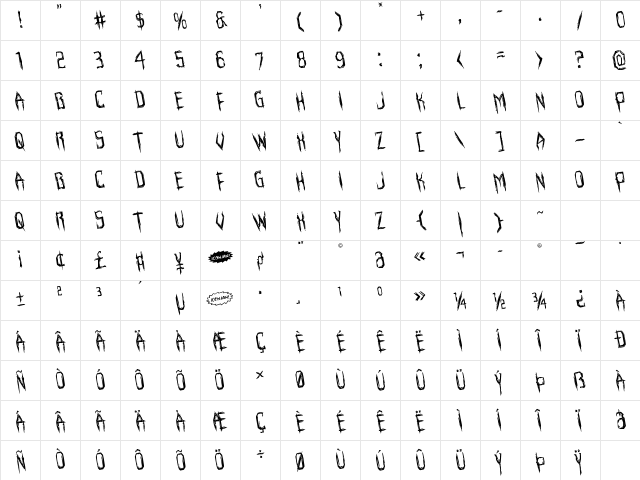
Horroroid Rotated Regular
Design Context for Horroroid Rotated
Horroroid Rotated carries an unsettling edge - its distorted letterforms are built to unsettle, perfectly suited to horror, Halloween, and dark creative work.
Font Pairing: Pair with a clean neutral sans-serif for body copy to let Horroroid Rotated's character lead without overwhelming the composition.
Pro Tip: Use Horroroid Rotated at larger display sizes for maximum impact. Consider generous tracking to let the disturbing character of each letterform breathe.